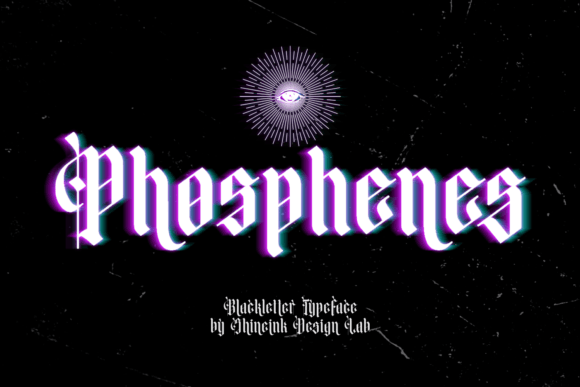
Unleash the power of expression with "Phosphenes," a stunning blackletter font that captures the essence of vintage charm and contemporary boldness. Its intricate characters, inspired by the beauty of the past, bring a sense of authenticity and timeless elegance to your designs. Dive into the world of "Phosphenes" and discover the endless possibilities it offers.
Embrace the heritage of blackletter fonts with "Phosphenes," a font that evokes the spirit of tradition and craftsmanship. Its meticulously crafted glyphs, reminiscent of ancient manuscripts, add a touch of sophistication and intrigue to your projects. Let your creativity soar as you explore the depths of this font's historic allure.
With "Phosphenes," you hold the key to unlocking a world of visual enchantment. Its captivating curves and intricate details command attention, making your designs truly unforgettable. Whether you're a seasoned designer or just starting out, "Phosphenes" will elevate your work to new heights of creativity and impact.
"Phosphenes" isn't just a font; it's a journey through time, a gateway to expressing yourself in ways you never thought possible. Its vintage charm and modern sensibility combine to create a font that resonates with both the past and the present. Discover the magic of "Phosphenes" and let your imagination run wild.